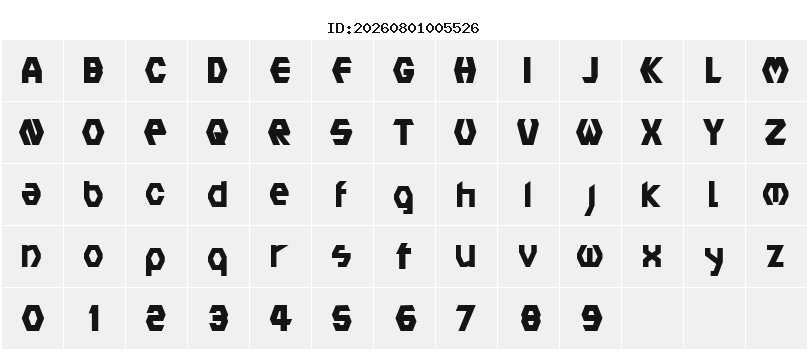
Lard Preview
• Font Name: Lard
• Font Style: Plane
• Font ID: Macromedia Fon￿ographer 4.1J Lard Plane
• Full Font Name: Lard Plane
• PostScript Name: LardPlane
About Lard.ttf
Lard.ttf is a modern, elegant sans-serif font designed for ultimate readability and visual harmony. Perfect for branding, headlines, web design, and print materials.